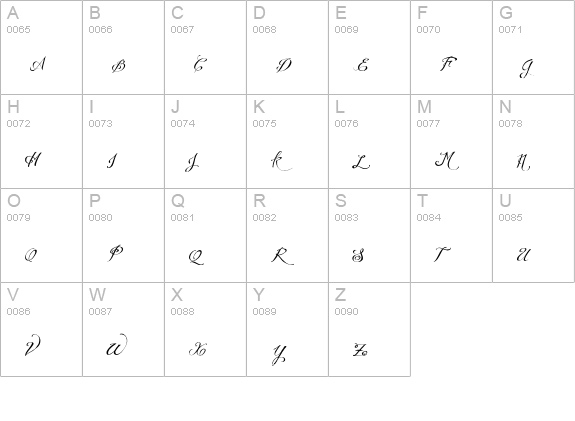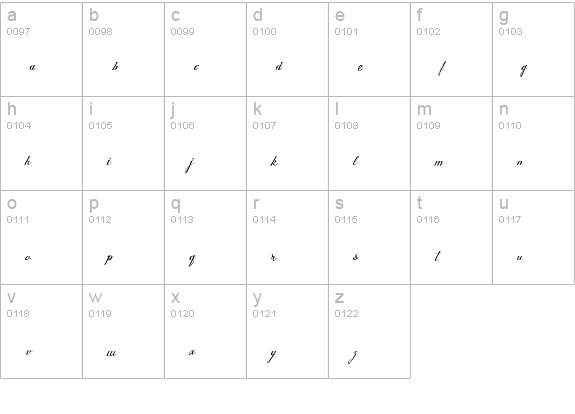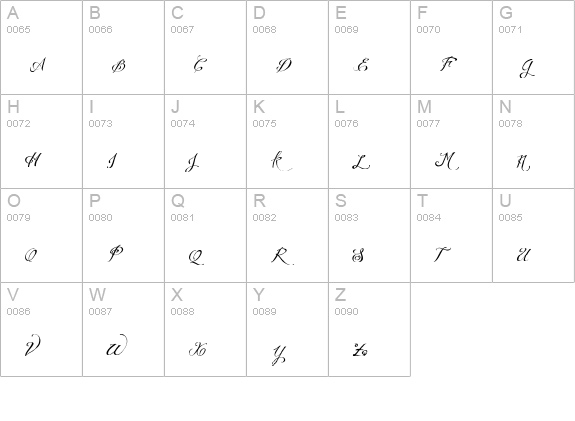
WEDDING NIGHTMARES trial Font Details
Introducing WEDDING NIGHTMARES, a breathtaking trial font that is set to revolutionize the world of wedding invitations, event planning, and beyond. With its enchanting and elegant design, this font captures the essence of both love and mystery, making it the perfect choice for those seeking a touch of magic on their special day. WEDDING NIGHTMARES trial font features an exquisite blend of intricate details and graceful curves, exuding a sense of sophistication and refinement. The meticulously crafted characters dance across the page, creating an atmosphere of romance and allure. Each letter is carefully designed to harmonize with the next, resulting in a truly captivating and harmonious composition. What sets WEDDING NIGHTMARES apart is not only its aesthetic appeal but also its versatility. This font can effortlessly adapt to a wide range of design projects, from wedding invitations and save-the-dates to menus, signage, and more. Its ability to evoke emotions and set the tone for any event is unmatched, making it a must-have for creative professionals and DIY enthusiasts alike. But here's the best part - WEDDING NIGHTMARES trial font is available for free! That's right, you can download this stunning font without spending a dime. Simply head over to FontsMarket.com, the leading online destination for high-quality fonts, and get your hands on this breathtaking typeface. Don't miss this opportunity to elevate your designs and captivate your audience with the timeless elegance of WEDDING NIGHTMARES. So, whether you're a professional designer looking to add a touch of enchantment to your portfolio or a soon-to-be-wed couple searching for the perfect font to reflect your love story, WEDDING NIGHTMARES trial font is the answer. Download it today and witness the magic unfold in your designs.